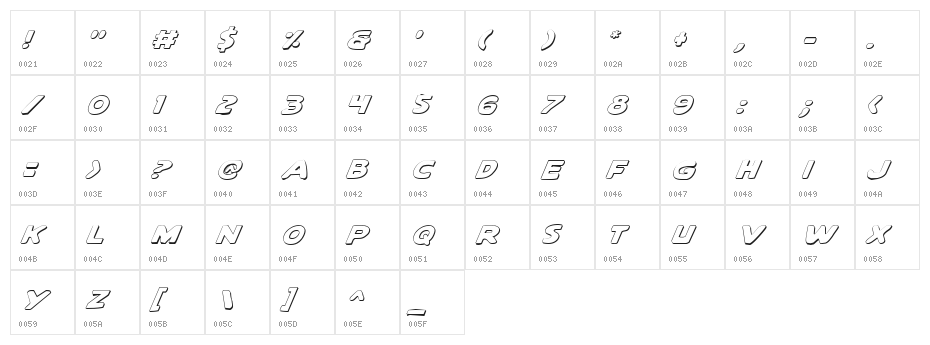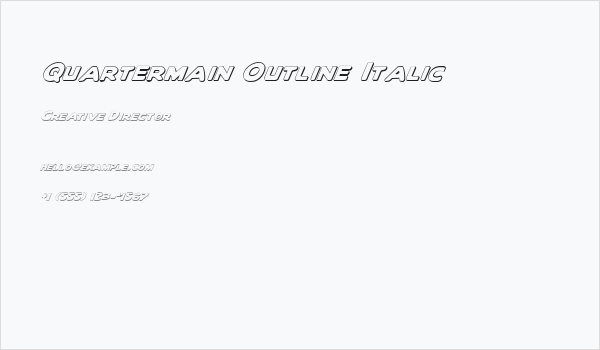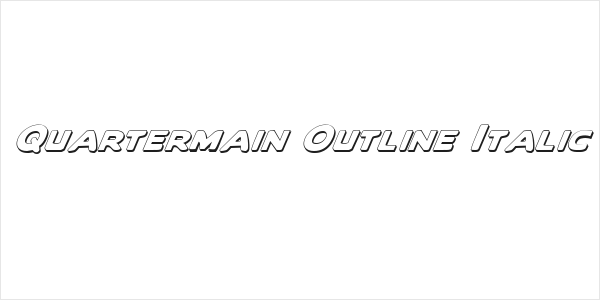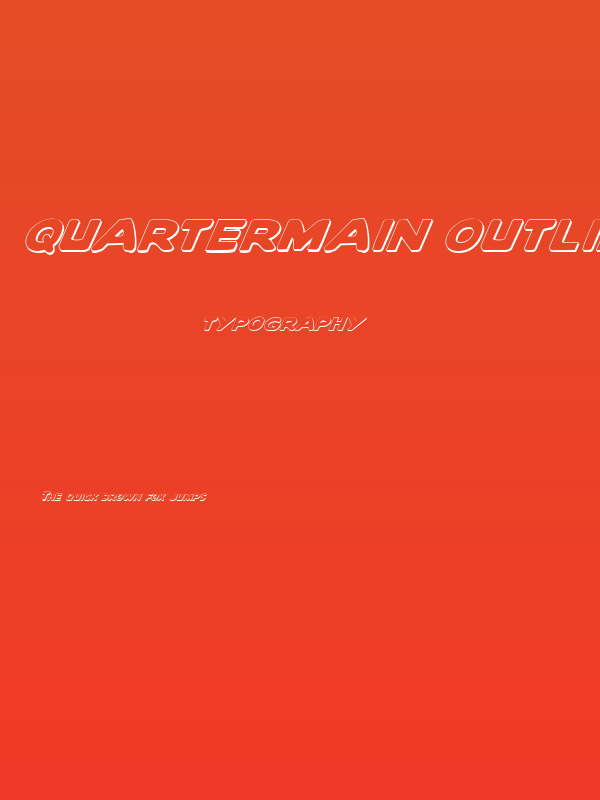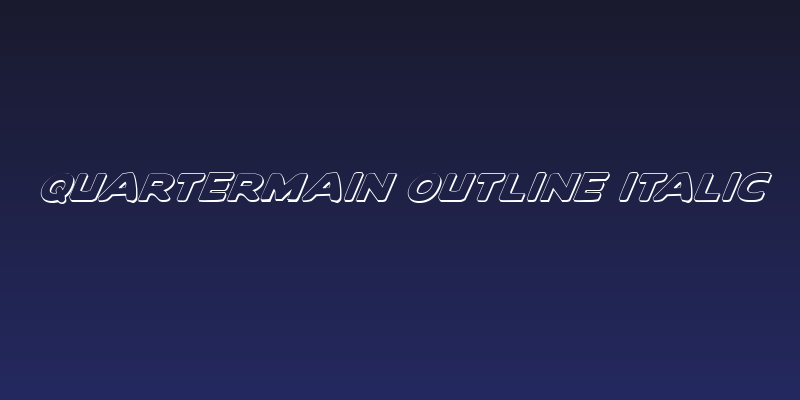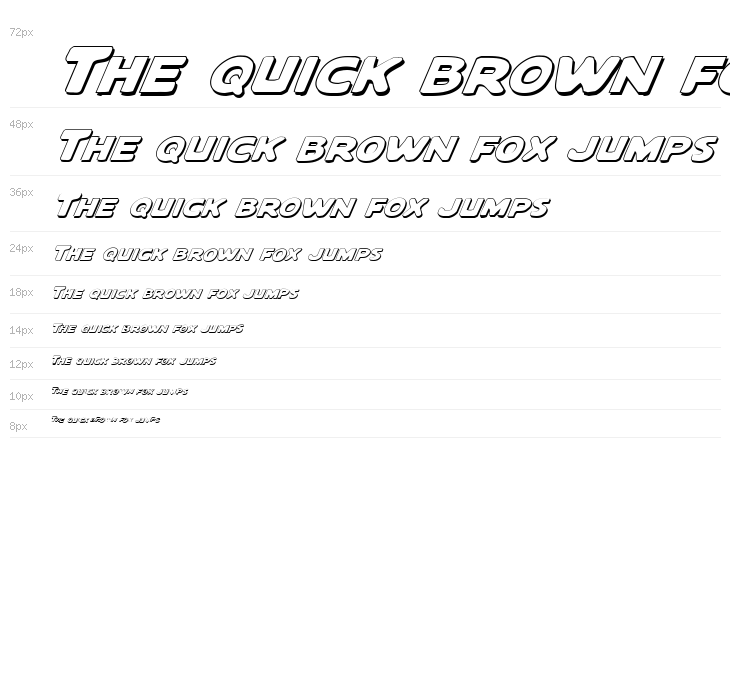
Quartermain Outline Italic Font
Quartermain Outline Italic Description
This font features a bold, italicized outline style that gives it a distinctive and modern appearance. The uppercase and lowercase letters are uniformly designed, with a consistent slant that adds a dynamic feel. The characters are outlined, creating a hollow effect that enhances readability while maintaining a stylish look. The numbers and special characters follow the same design principles, ensuring a cohesive appearance across all elements. This font's unique outline style makes it stand out, ideal for projects that require a bold statement.
| Proposed Projects | Ideal for headlines, posters, logos, and branding materials that require a bold and modern look. |